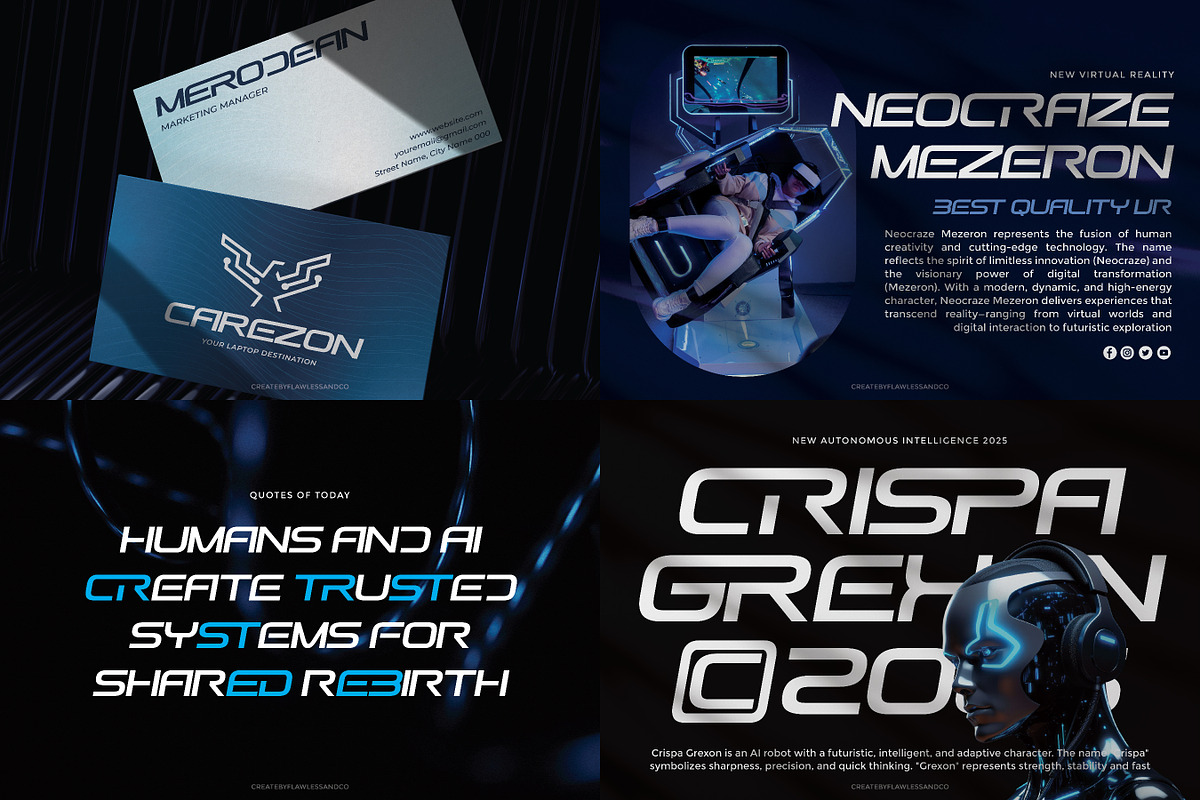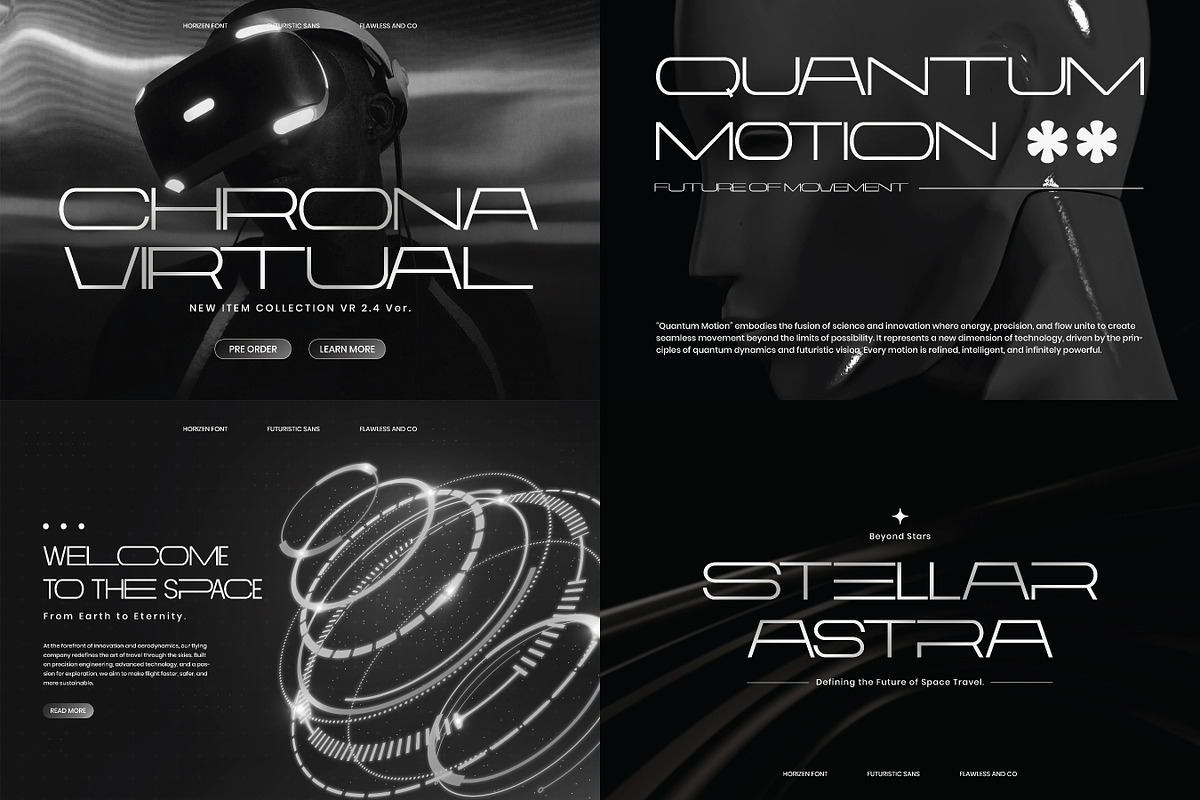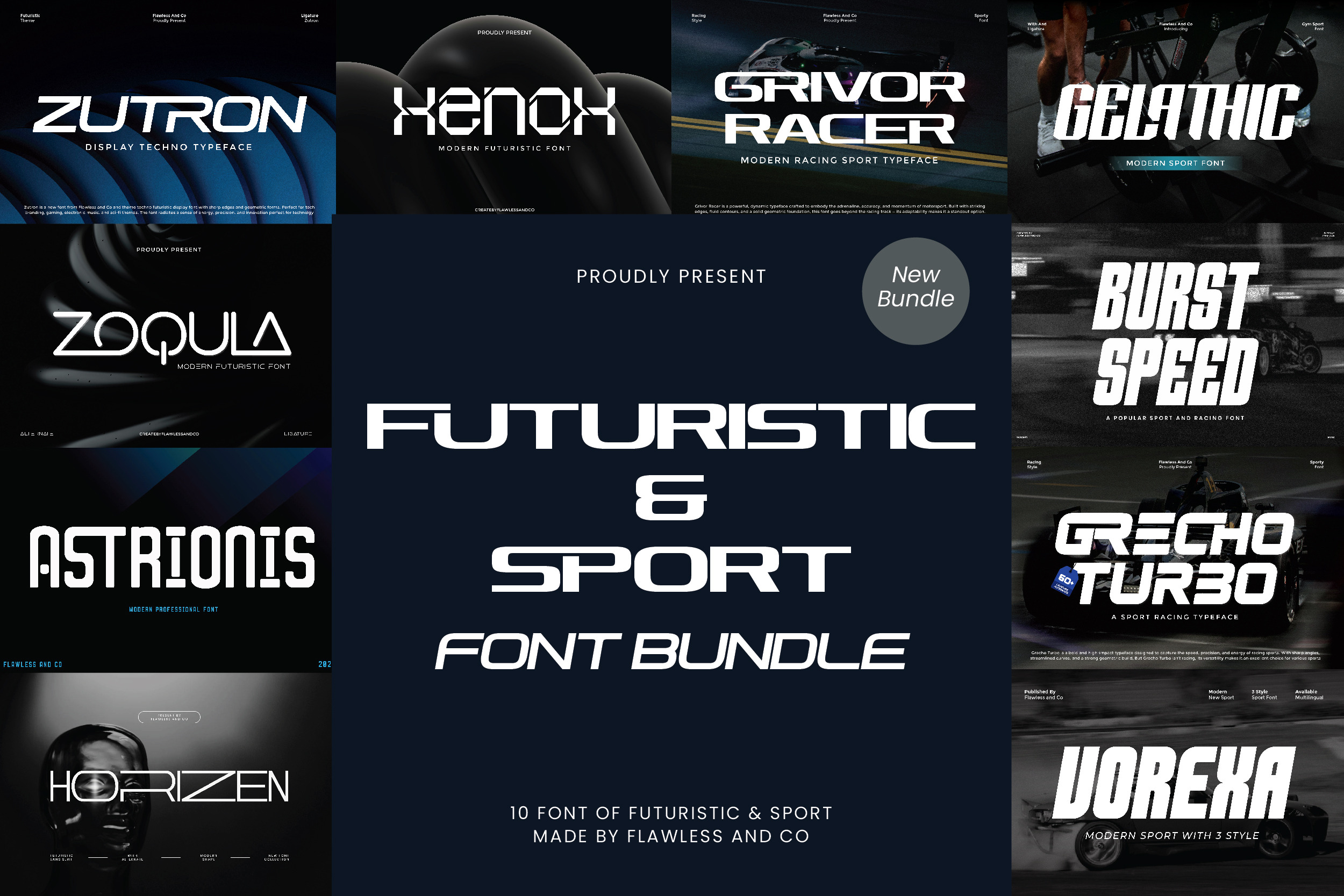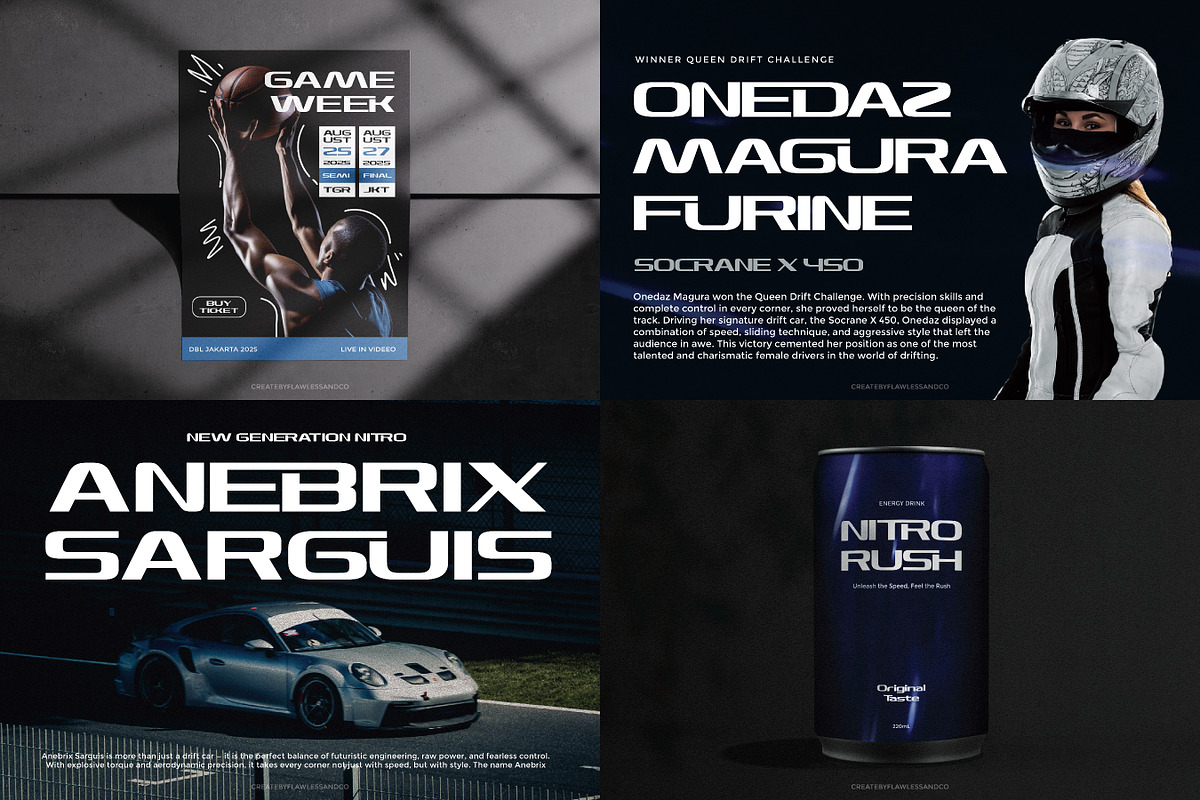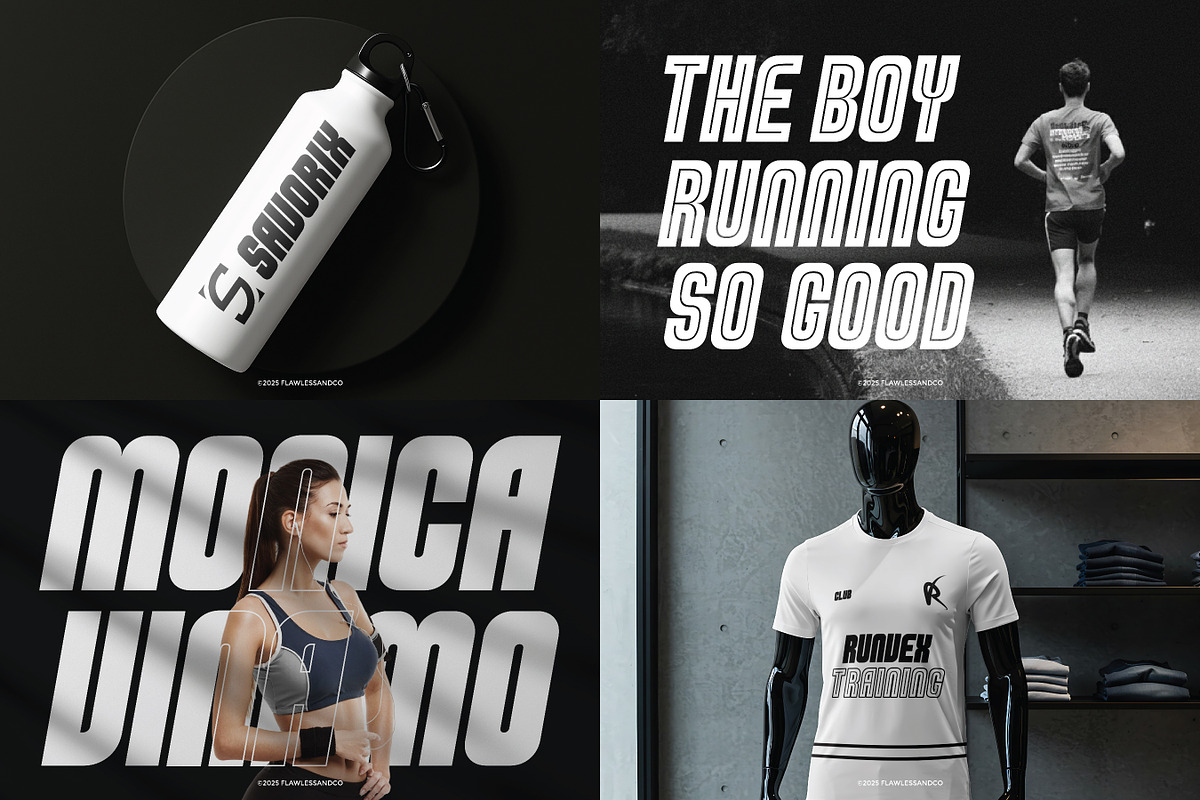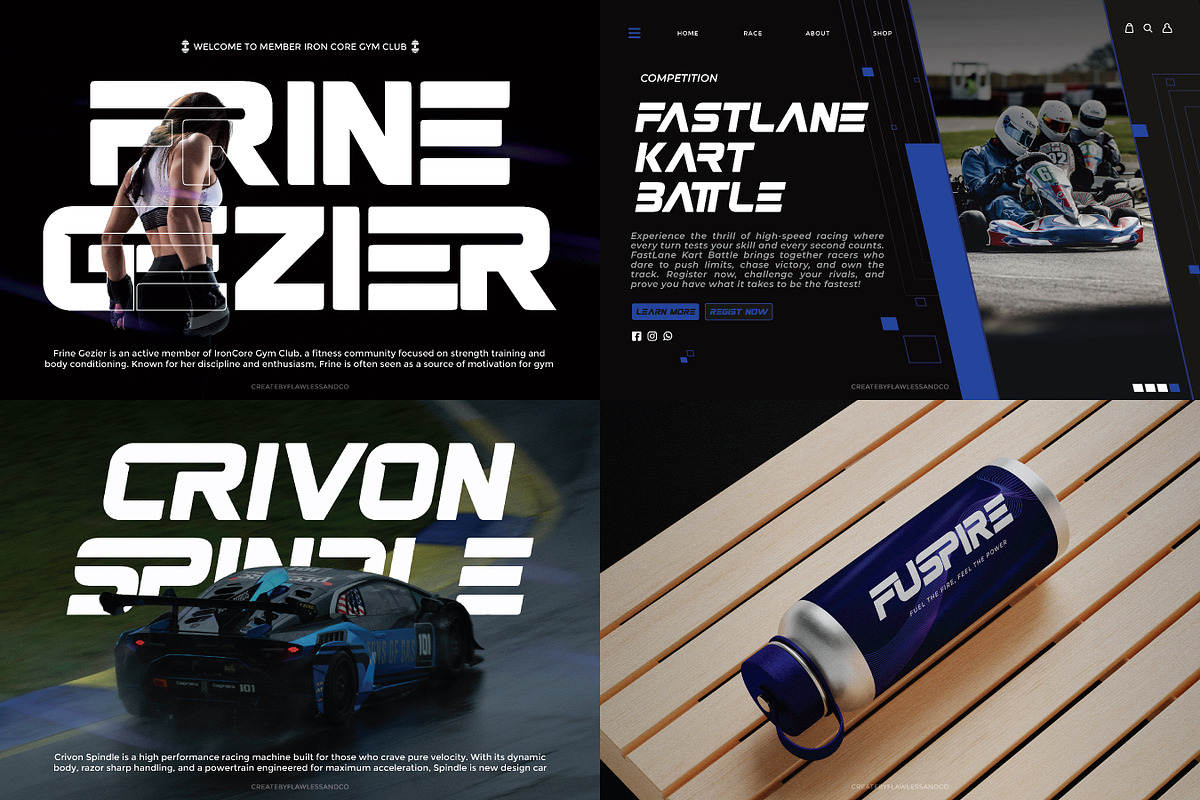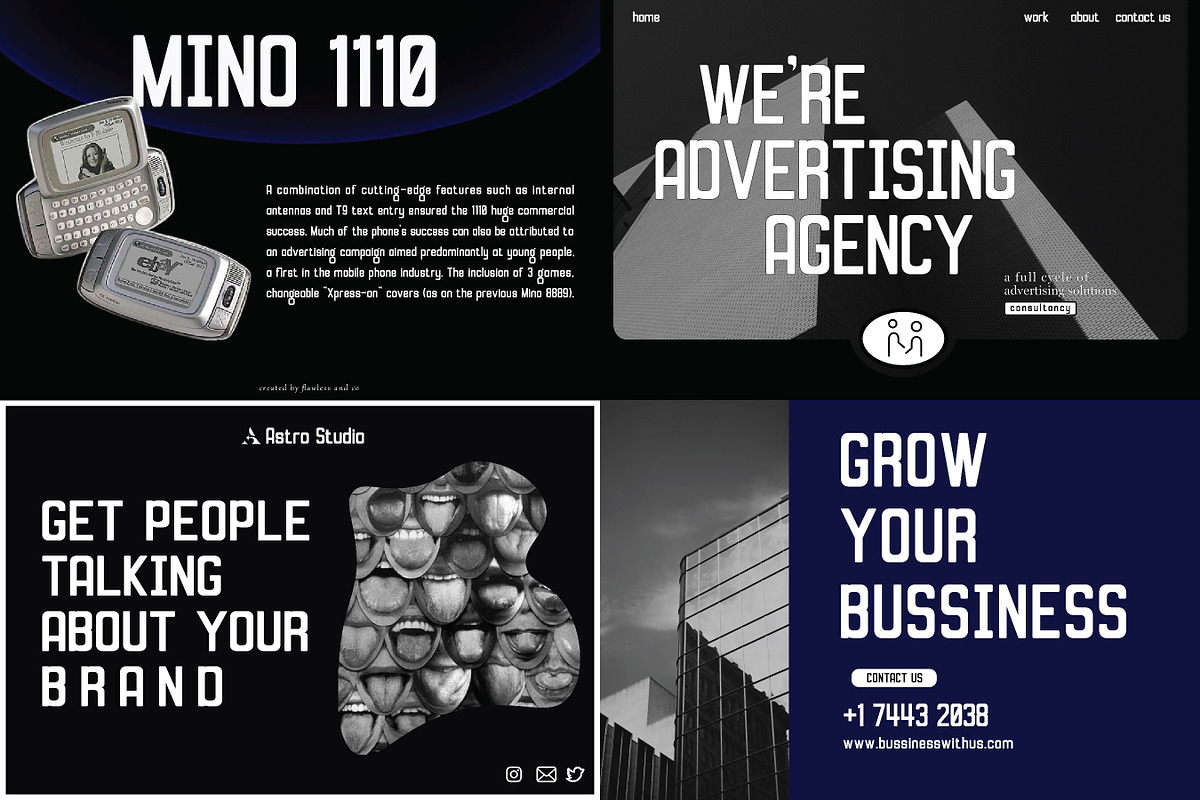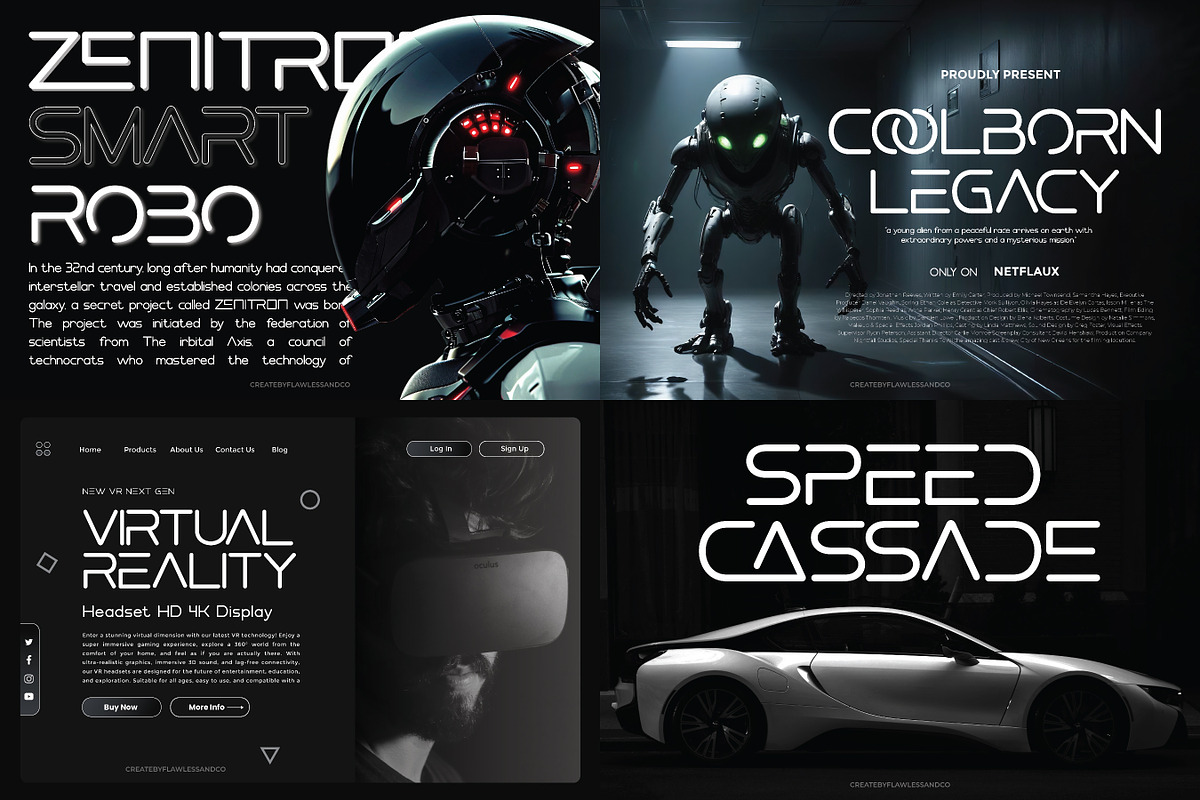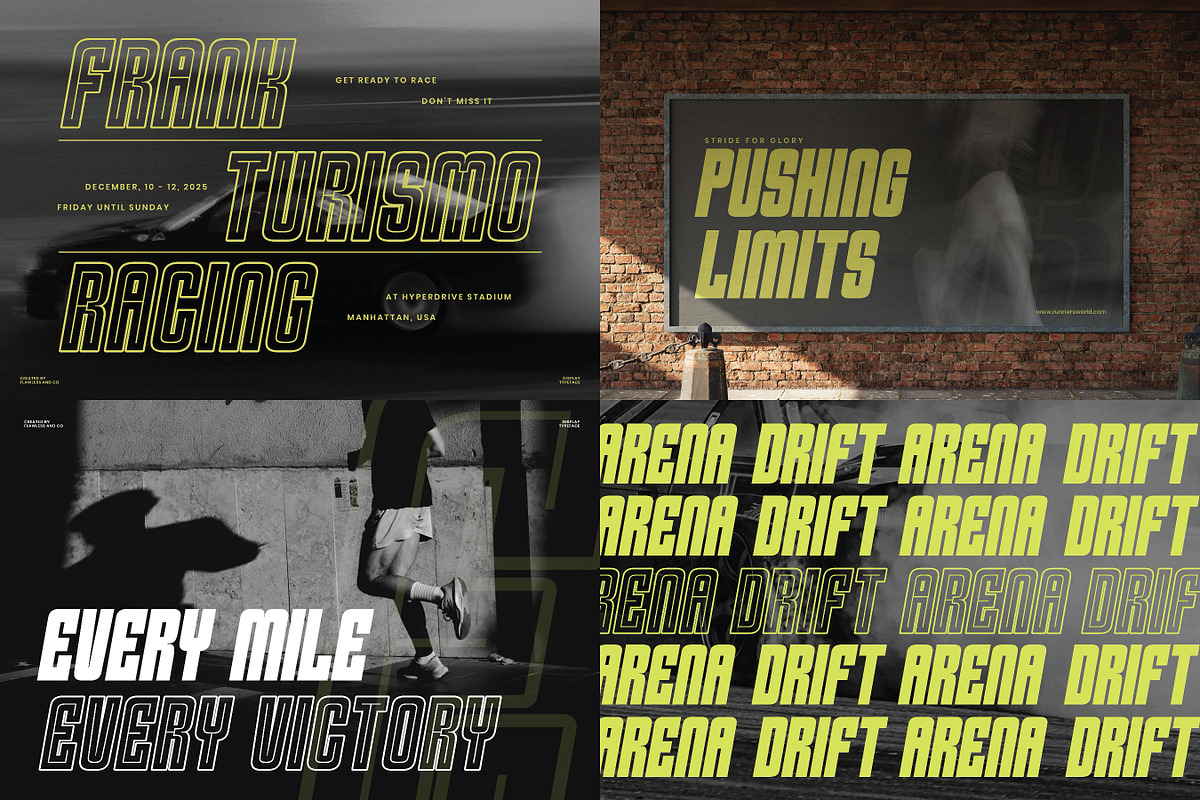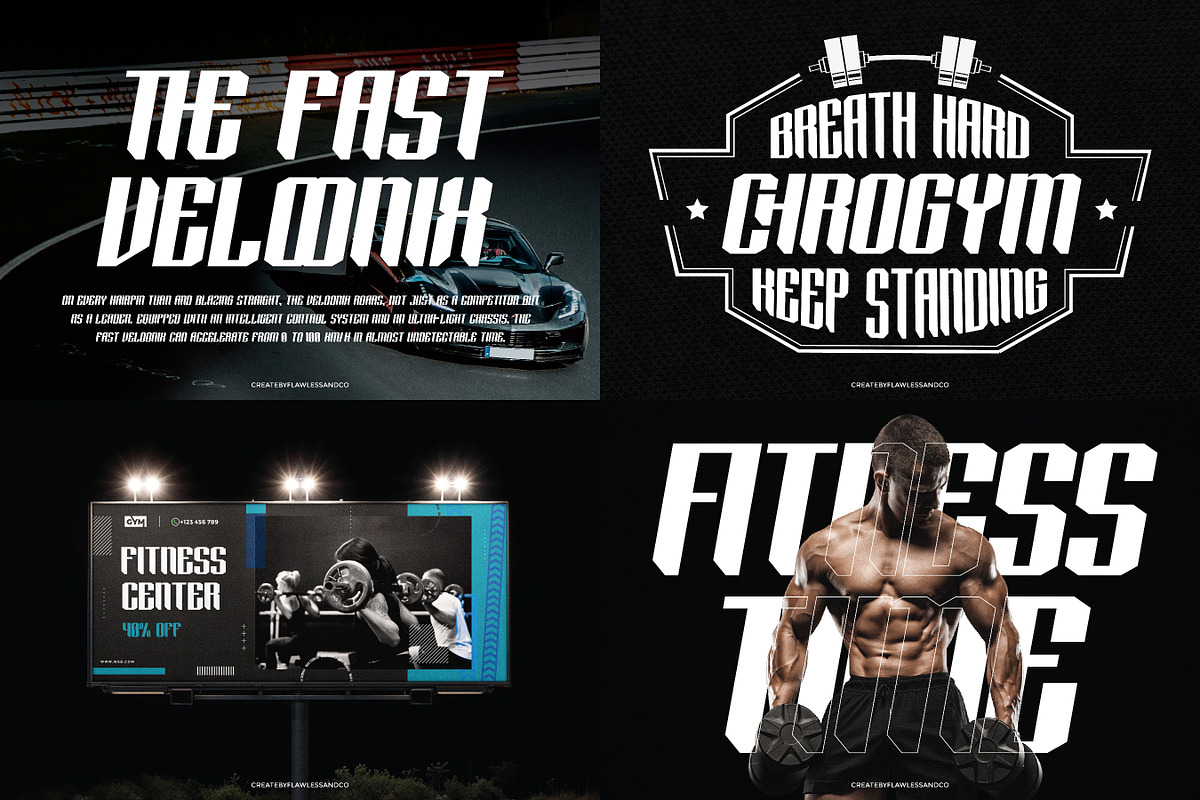
Futuristic & Sport Font Bundle
Introducing the “Futuristic & Sport Font Bundle” a powerful collection of fonts designed to deliver speed, energy, and a bold modern aesthetic across your creative projects. Each font in this bundle features dynamic letterforms, sharp structures, and futuristic details that create a strong visual impact inspired by sports, technology, and high-performance design.
These fonts combine modern futuristic elements with sporty and aggressive styling, making them ideal for projects that require a fast-paced, energetic, and attention-grabbing look. Whether you're working on esports branding, racing graphics, fitness campaigns, gaming content, or athletic promotions, this bundle provides versatile fonts that bring power and motion into every design.
This bundle includes 10 high-quality futuristic and sport fonts carefully crafted for bold and impactful visuals. They are suitable for a wide range of design purposes such as team branding, logos, gaming thumbnails, sportswear, posters, digital content, advertisements, social media graphics, streaming visuals, and more.
Including:
Alternates & Ligatures
Sports branding and team logos
Esports and gaming design
Fitness and gym promotions
Racing and automotive graphics
YouTube thumbnails and streaming visuals
Posters and advertising materials
Social media content
Tech and futuristic branding
Sportswear and merchandise
Bold and energetic display typography